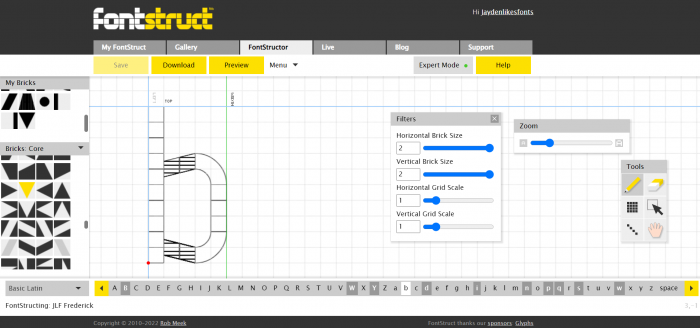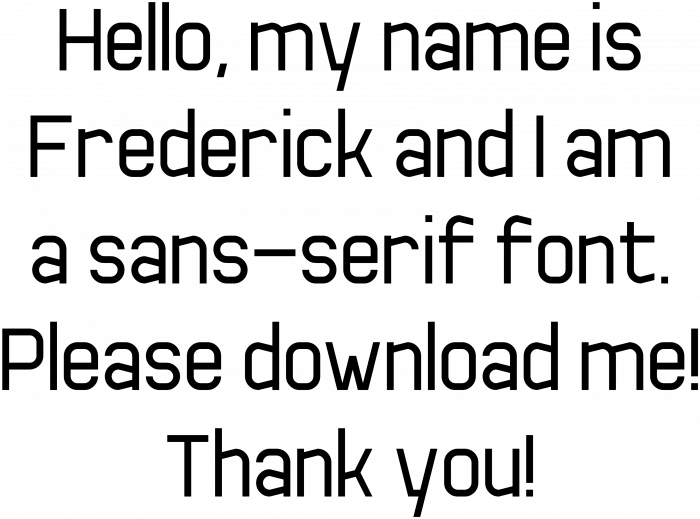
• Sans-serif font which is humanist and geometric.
I will show you a sample on how it was made in the comments.
Inspired by Uptake but I just wanted to add Cyrllic characters and alternatives for a and g are found in the copyright and registered symbol.